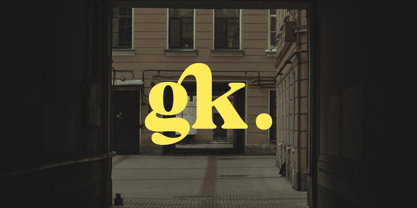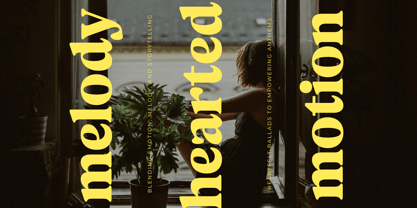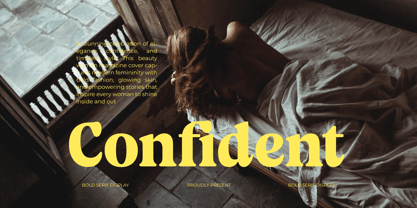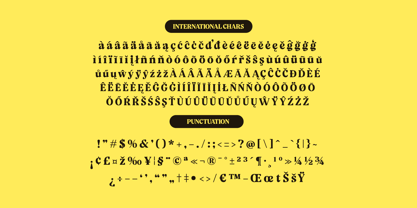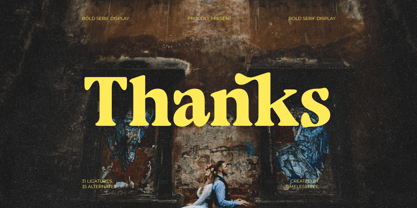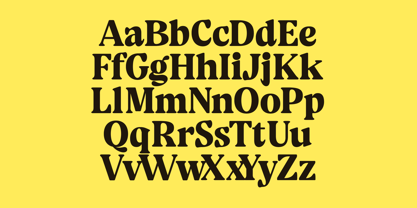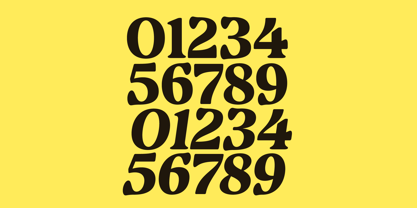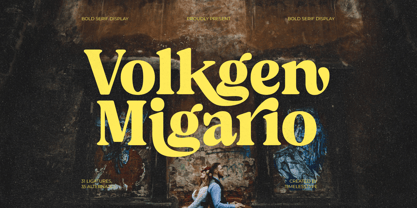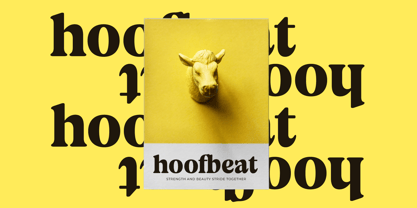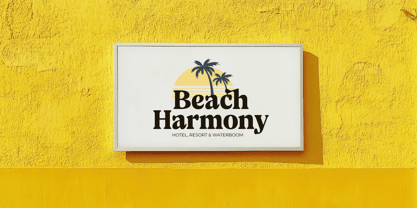
Volkgen Migario
The Volkgen Migario Font Family was designed by Heru Utama Putra and published by Timelesstype Studio. Volkgen Migario contains 2 styles and family package options. More about this family
Volkgen Migario - Bold Serif Display Font , Volkgen Migario is a bold serif display font that blends vintage character with modern curves. Featuring 31 ligatures and 35 alternates, it brings a confident and expressive tone to your typography. Perfect for posters, headlines, logos, and editorial designs, Volkgen Migario adds depth and personality to any creative project. Its bold structure and groovy flair make it an excellent choice for retro-inspired visuals with a modern edge